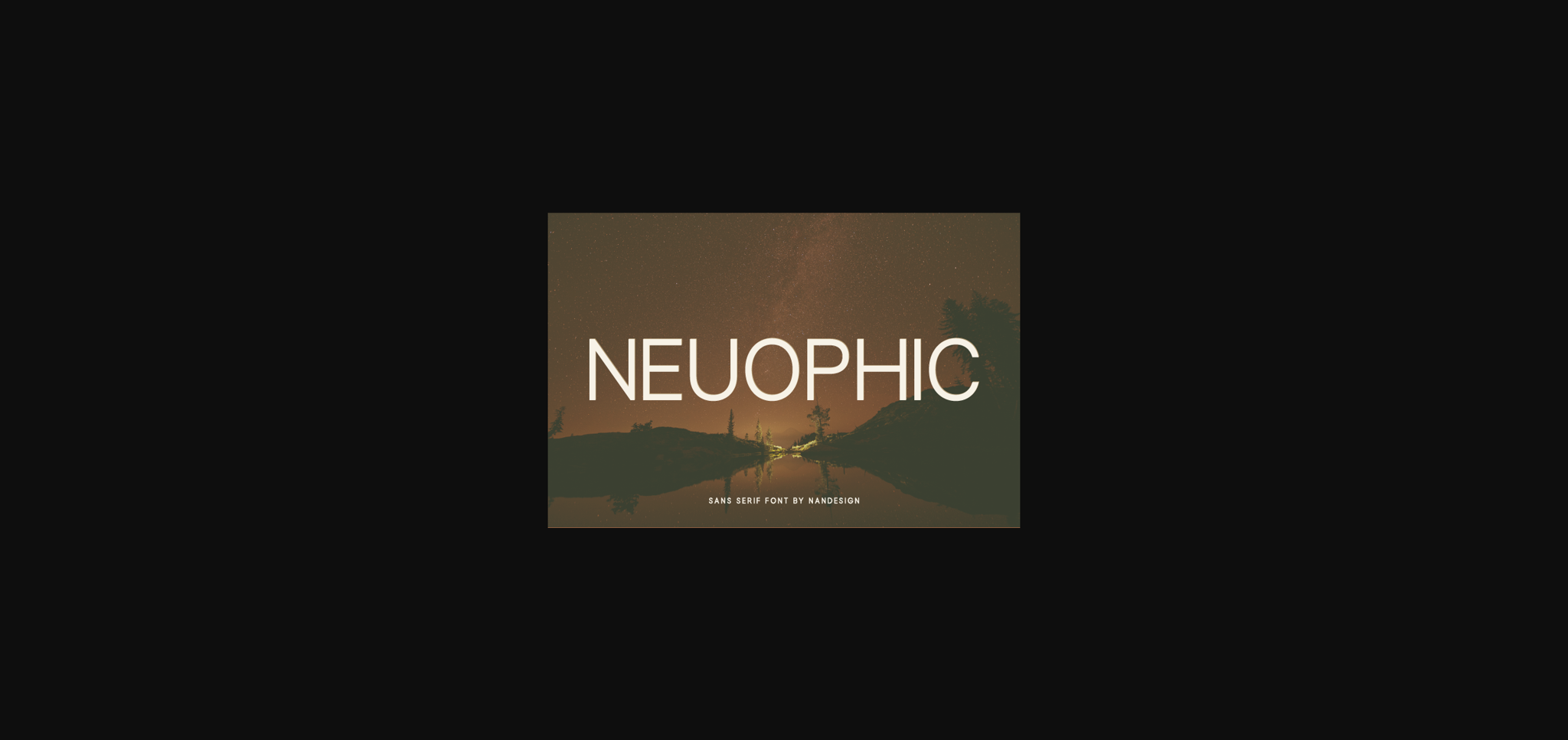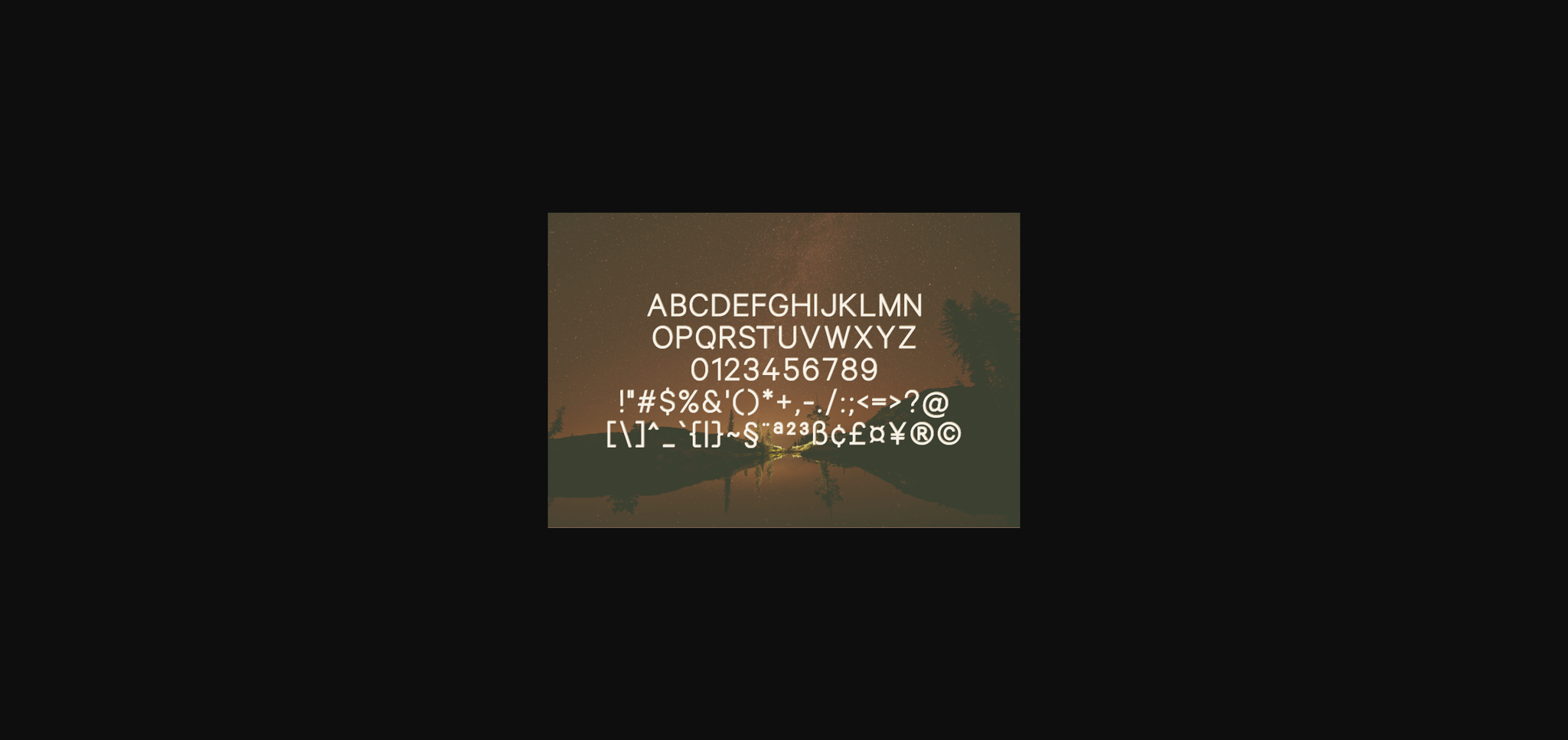
About Neuophic Font
Neuophic is a simple and versatile sans serif font, which will brighten up every project you’re working on. Use it to create beautiful headings, gorgeous invitations, stunning logos, and so much more!